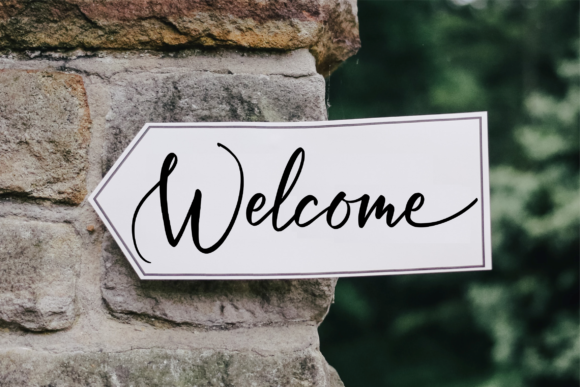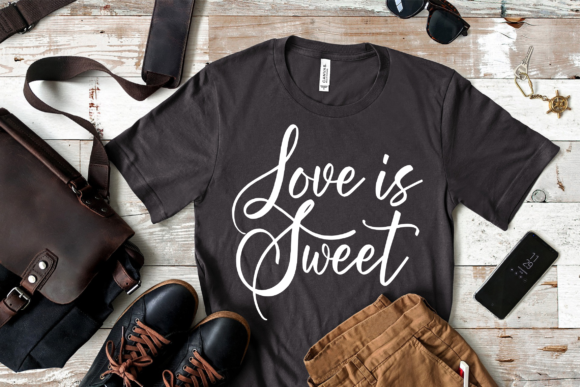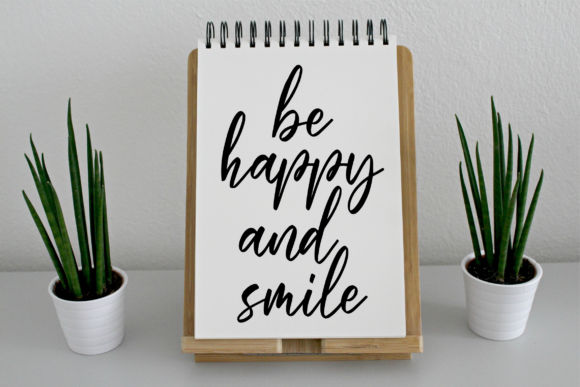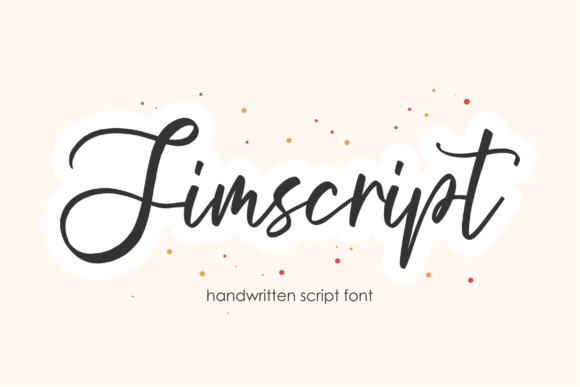
Introduction to Jimscript Font
Jimscript is a lovely script font.
It is perfect for product packaging, branding project, magazine, social media, wedding invitations, or just used to express words above the background This font is PUA encoded which means you can access all of the glyphs and swashes with ease.
Jimscript Font offers exceptional quality and versatility, making it a valuable addition to your design toolkit. Whether you’re creating for personal projects or commercial use, Jimscript Font delivers professional results.